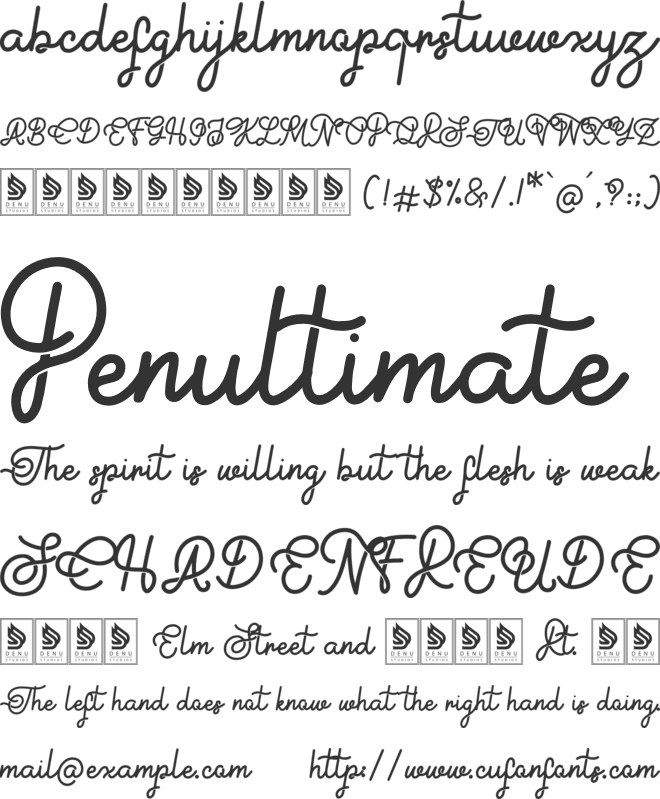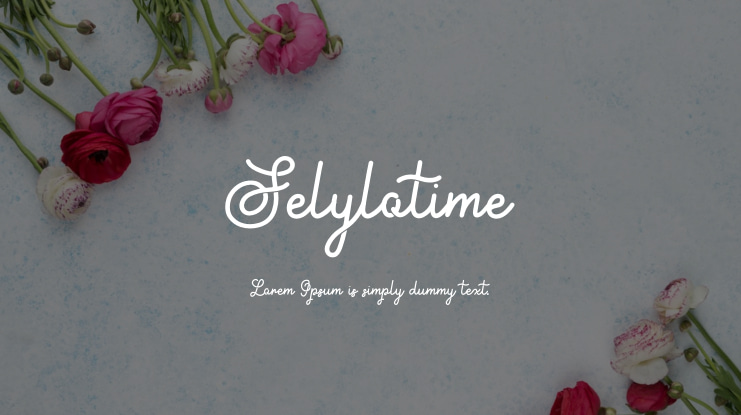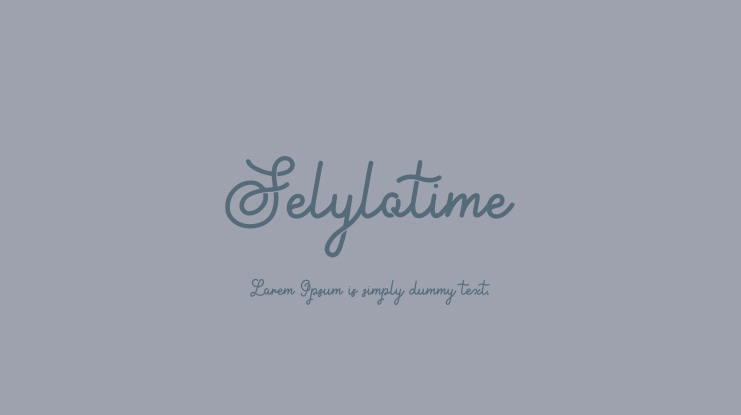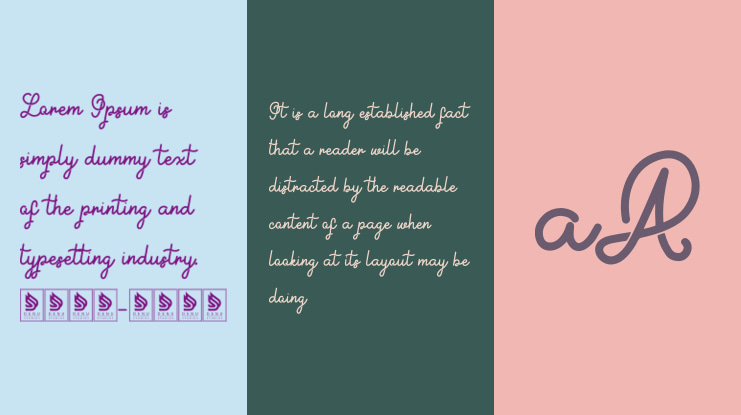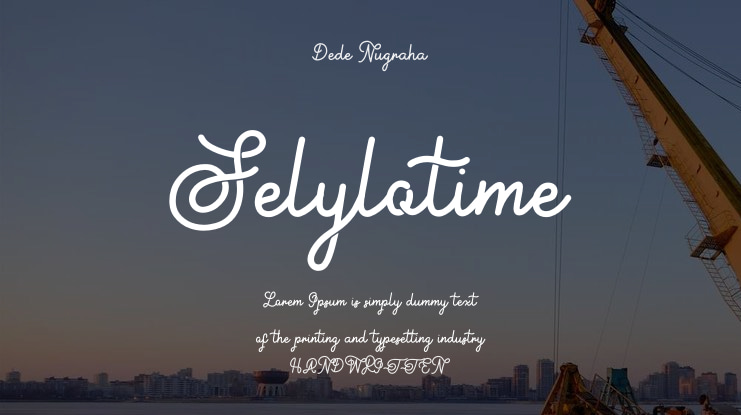
Dede Nugraha
Selylotime | Monoline Script is suitable for any projects such as: logos, branding projects, homeware designs, product packaging, mugs, quotes, posters, shopping bags, t-shirts, book covers, name card, invitation cards, greeting cards, label, photography, watermark, special events, and all your other lovely projects that need a Monoline script taste.